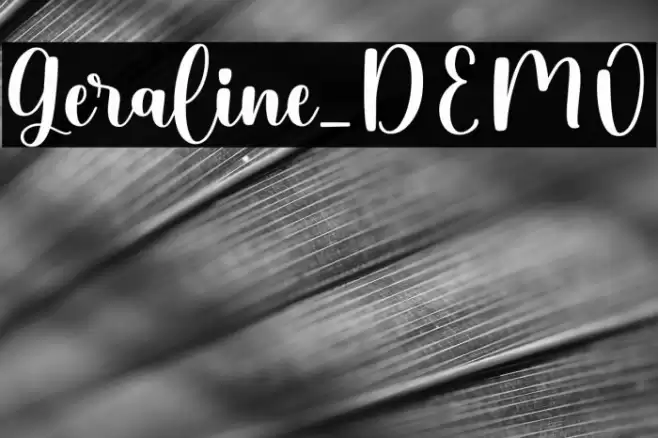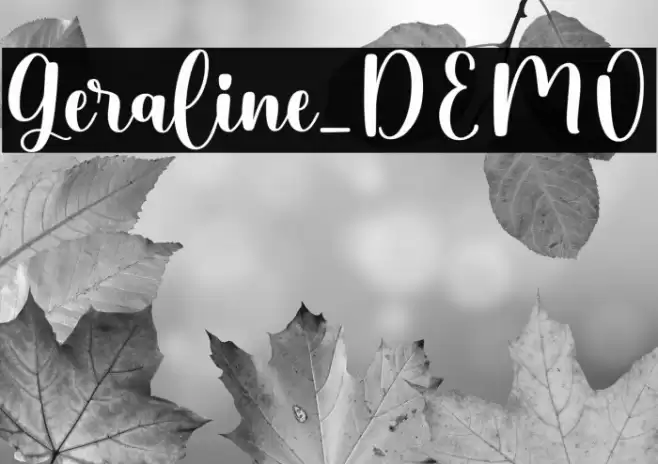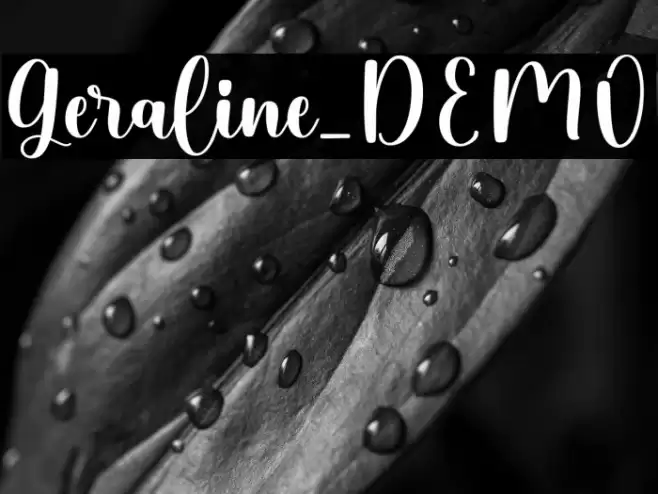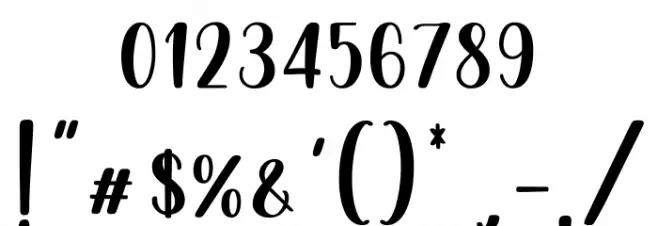
Geraline_DEMO Font
Geraline_DEMO Description
This font features an elegant, flowing script style that exudes a sense of sophistication and charm. The characters are designed with smooth, sweeping curves and a consistent stroke width, giving it a harmonious and balanced appearance. The uppercase letters are bold and prominent, while the lowercase letters maintain a graceful and fluid form. The numbers and special characters are crafted with the same attention to detail, ensuring a cohesive look across all elements. This font is ideal for projects that require a touch of elegance and personality, such as invitations, branding, and decorative designs.
An elegant, flowing script font with smooth curves and consistent strokes from Regular fonts.
- Overall Style: Elegant